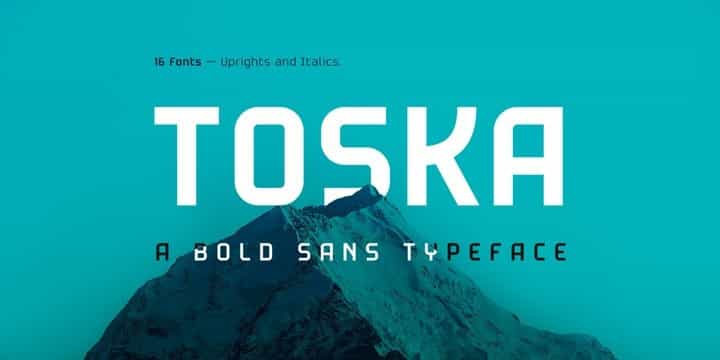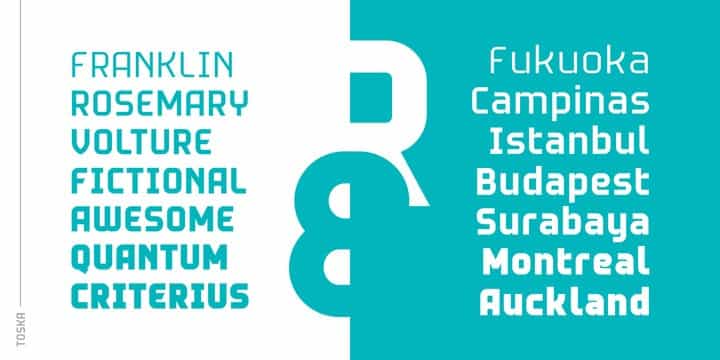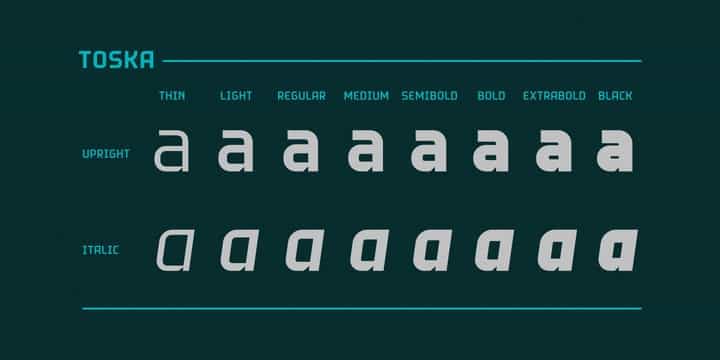
Discover Toska Font, part of the Sans Serif collection—a versatile and unique font perfect for adding a personal touch to your projects. Download it for free and enjoy crafting designs with style, from invitations to social media posts. This font is available exclusively for personal use, giving you the freedom to create without limits. Unlock your creativity with Toska Font today!
Hi! Do you need an elegant sans font with a stylish and contemporary mood? Your coming projects would be suitable with Toska font. For example, logo branding, editorial design, stationery design, blog design, modern advertising design, card invitation, art quote, home decor, book/cover title, special events ( wedding, birthday, etc ), and any more.